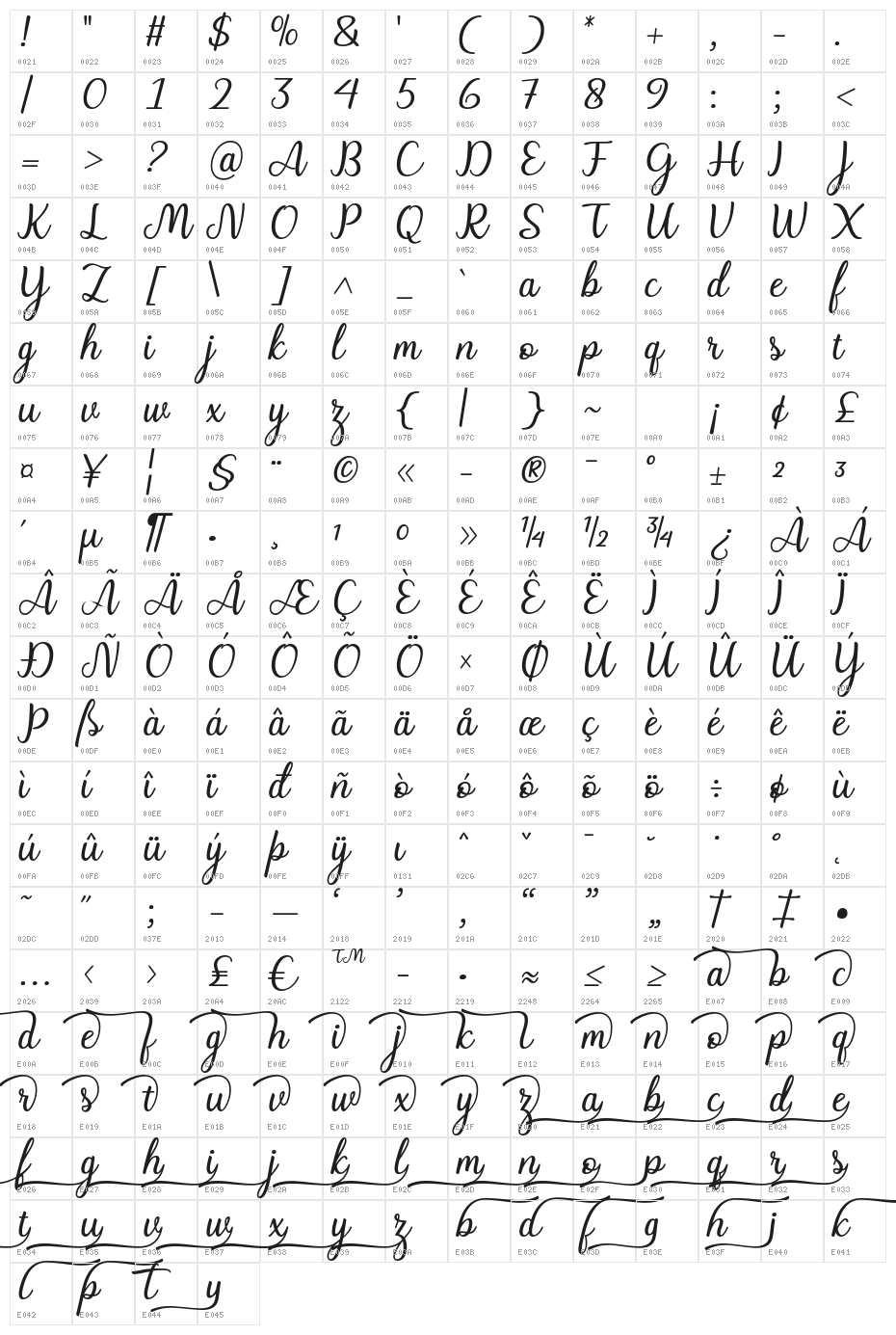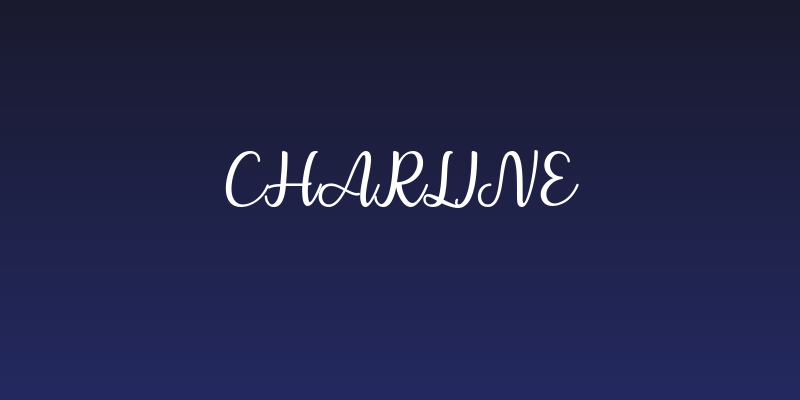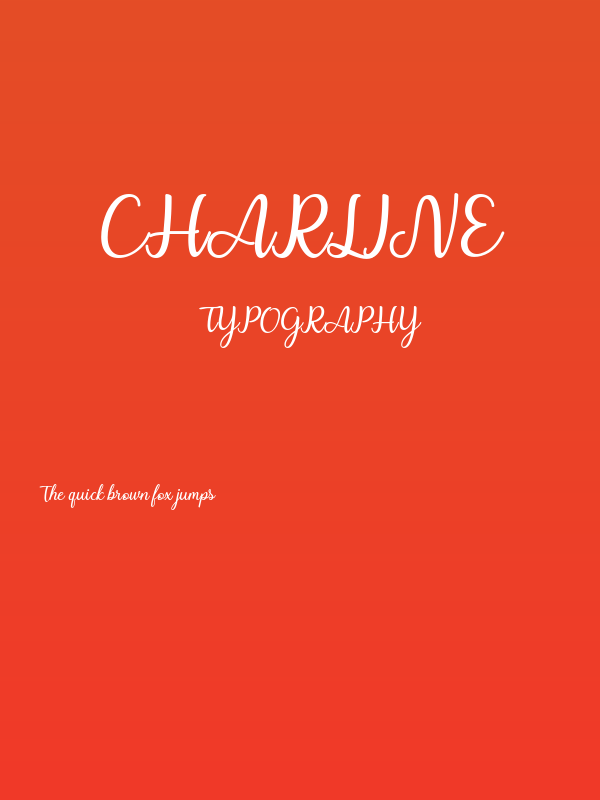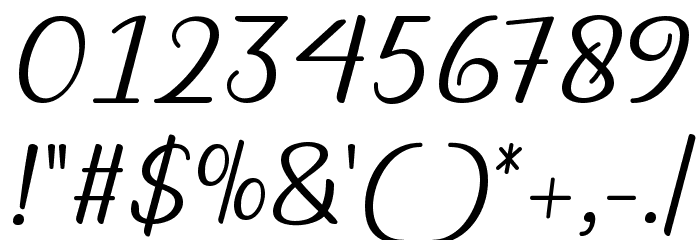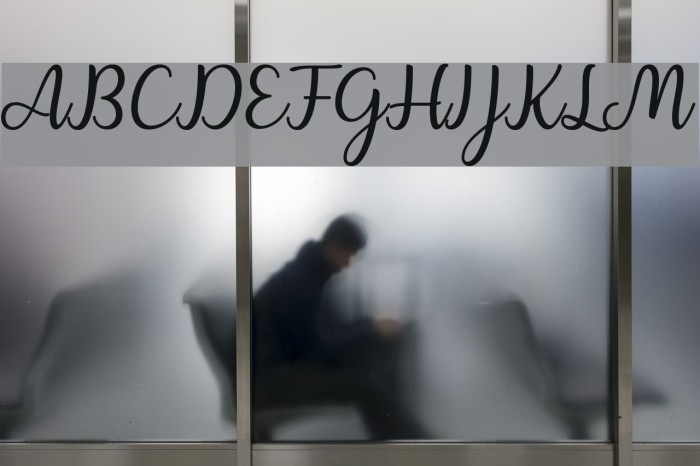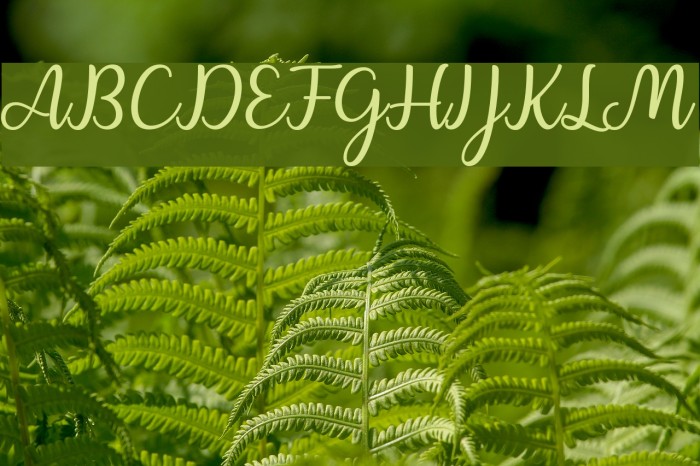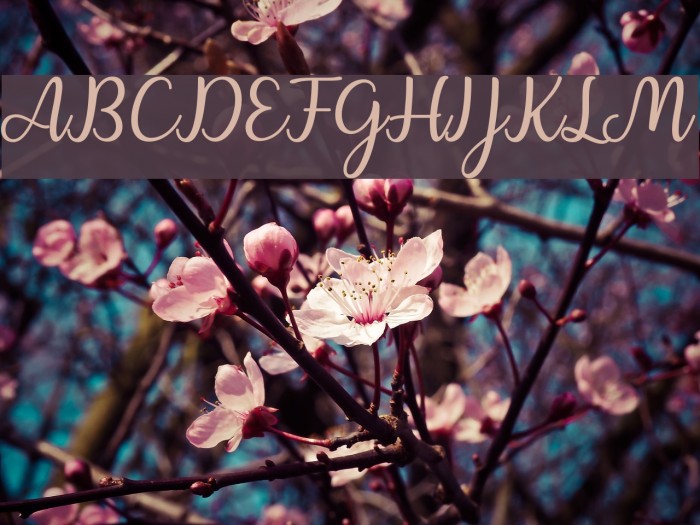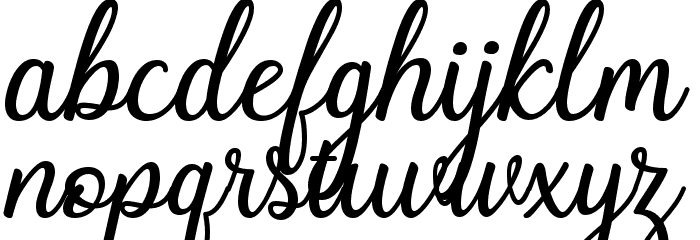
Charline Font
Charline Description
This font features a flowing, cursive style with elegant loops and smooth transitions between letters. The uppercase letters are slightly more ornate, with graceful curves that add a touch of sophistication. The lowercase letters maintain a consistent flow, enhancing readability while retaining a stylish appearance. Numbers are clear and distinct, with a slight slant that complements the overall cursive theme. Special characters are designed to match the font's aesthetic, ensuring a cohesive look across all text. This font is ideal for projects that require a personal, handwritten touch.
| Proposed Projects | Ideal for wedding invitations, greeting cards, personal branding, and elegant logos. |